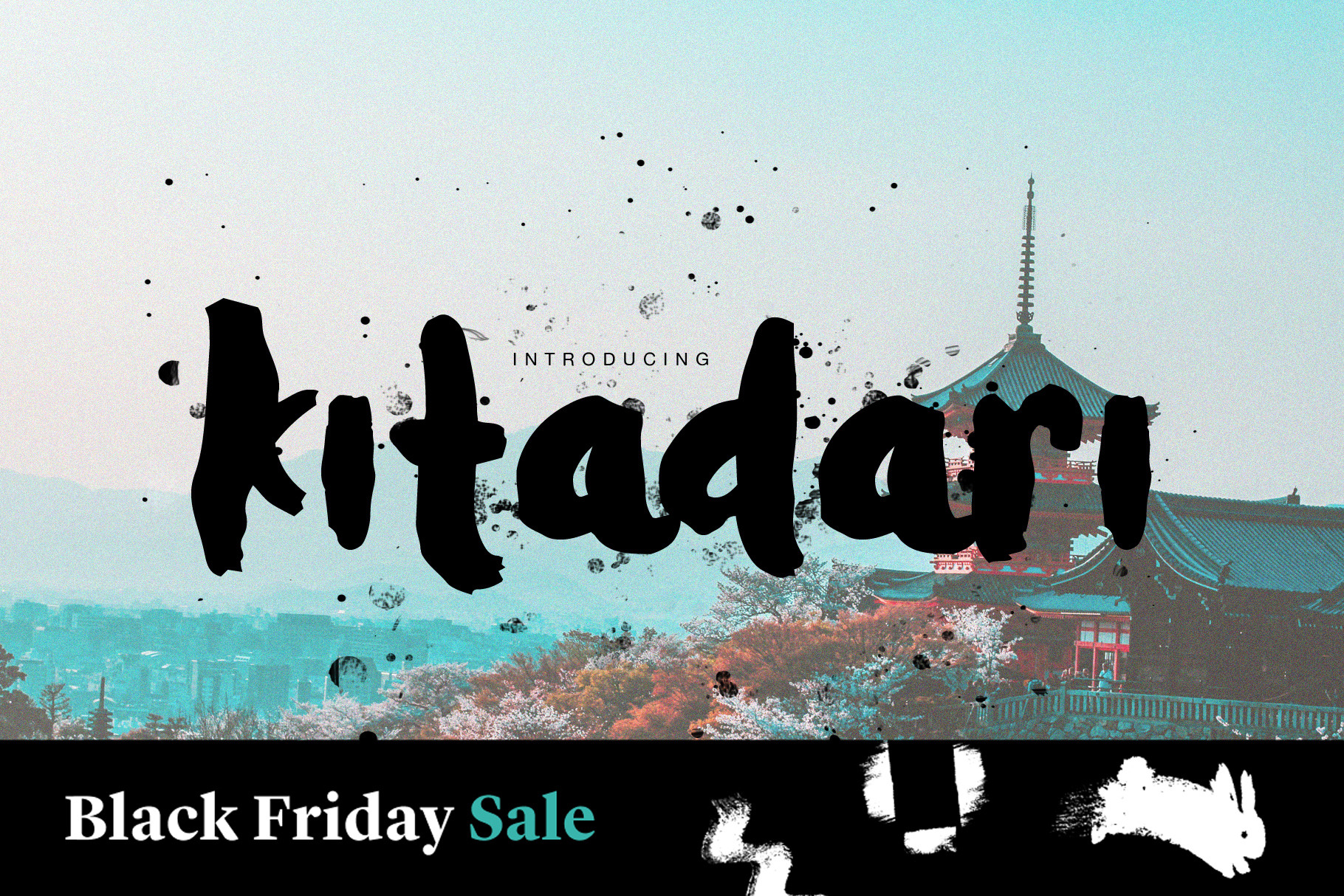
Kitadari Brush Font
Introducing Kitadari Brush Font, from real brush, very unique excellent for wallpaper, display, smartphone case, fabric, totebag, pillow case, textile, fashion, scrapbook, or whatever you want for your printable project